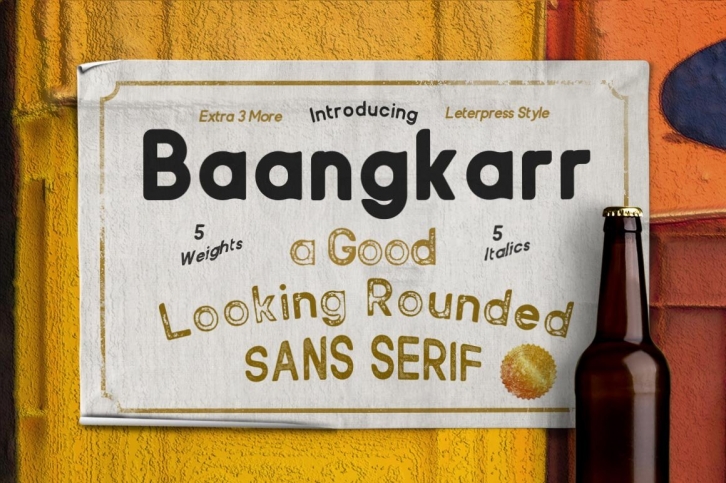
Baangkarr is a geometric sans which come in ten weights with the italics. The rounded corner, also will keep the softness and eyepleasing. The combination of propotions and contrasting styles, makes Baangkar an ideal choice for both body and display text.
Not only the regulars, the different styles which included in the Baangkarr family, also offer flexibility and variation for your projects. All Baangkar syles, can work for your vintage, classic and retro works, or for your editorial works.
Baangkarr will make a good choice for your next project, either for a formal or a relaxed look.